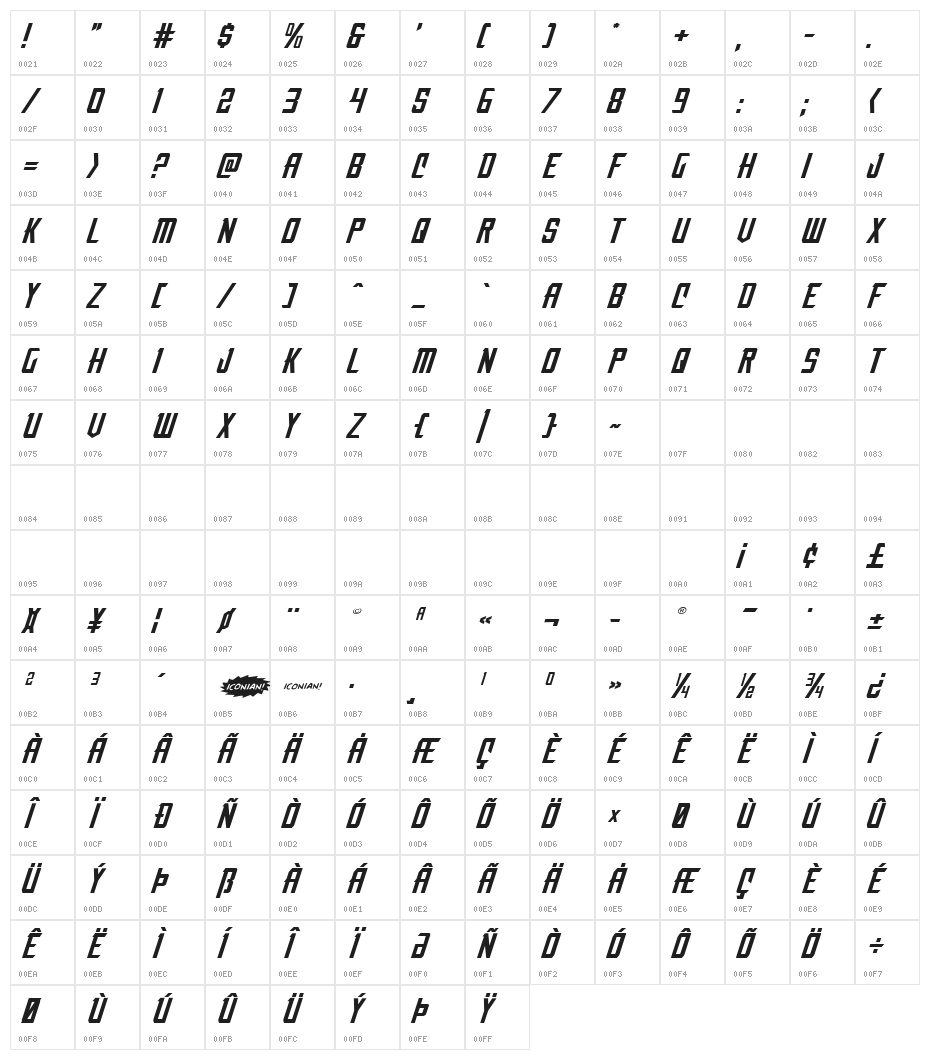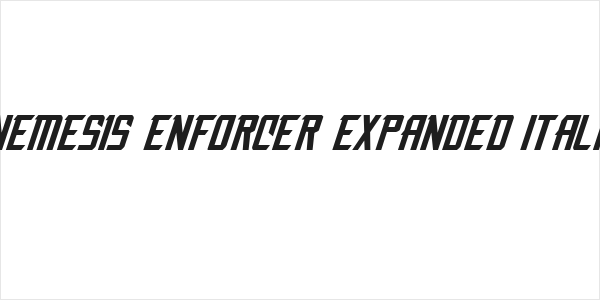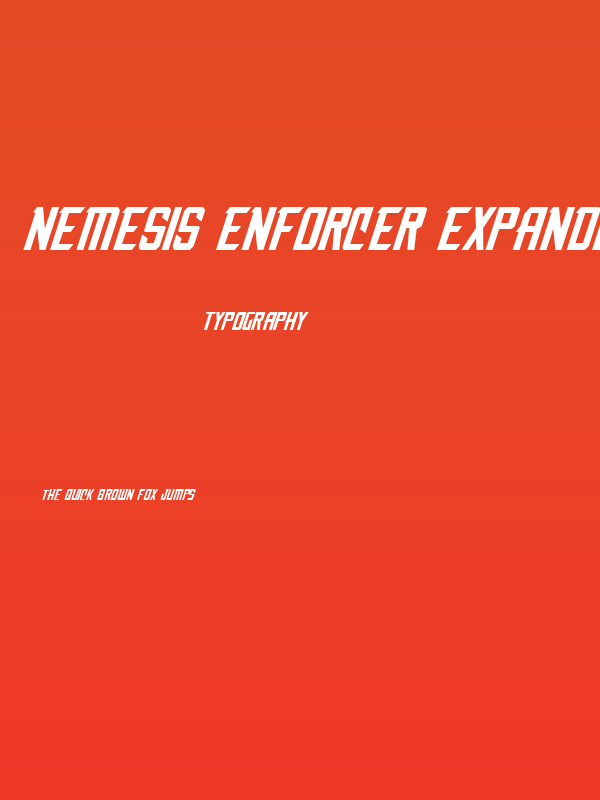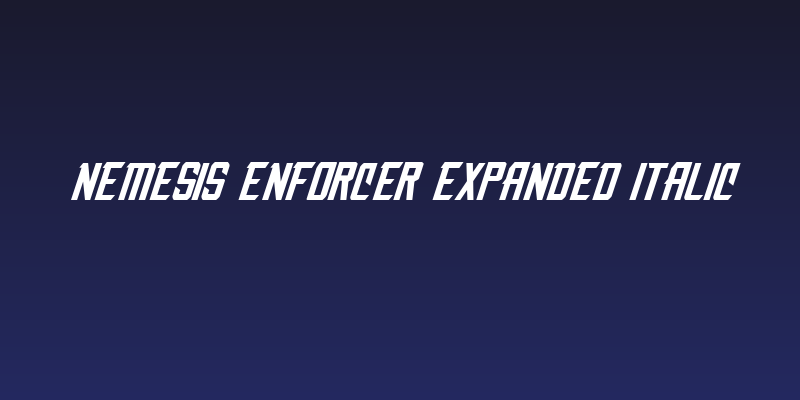
Nemesis Enforcer Expanded Italic Font
Nemesis Enforcer Expanded Italic Description
This font features a bold and dynamic style with an italic slant, giving it a sense of motion and energy. The characters are expanded, providing a wide and impactful appearance. The angular design and sharp edges contribute to a modern and aggressive aesthetic, making it suitable for attention-grabbing headlines and designs. The consistent stroke width across characters ensures a uniform look, while the expanded width enhances readability and presence.
| Proposed Projects | Ideal for sports branding, action movie posters, video game titles, and dynamic advertising campaigns. |